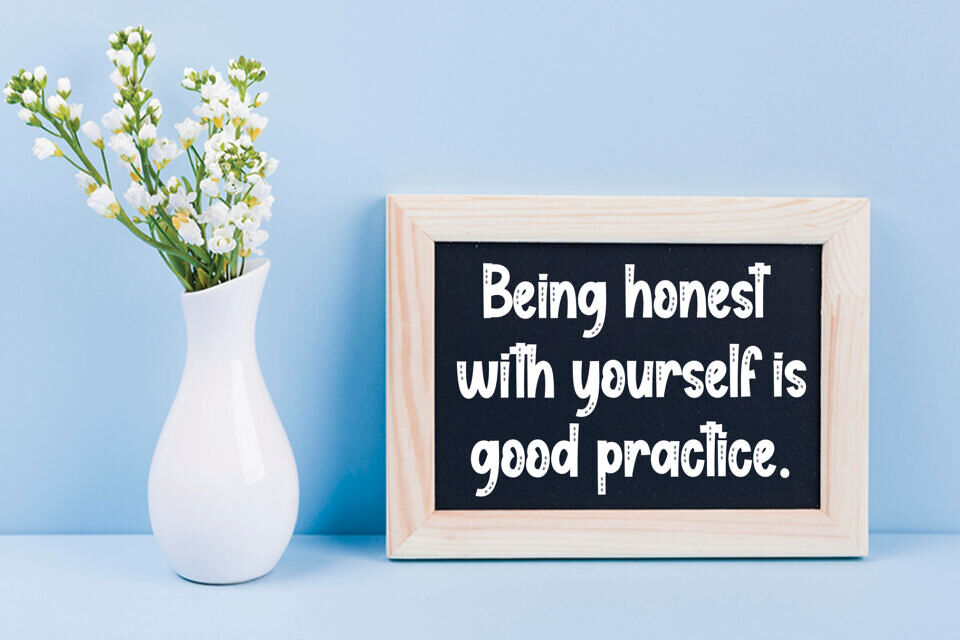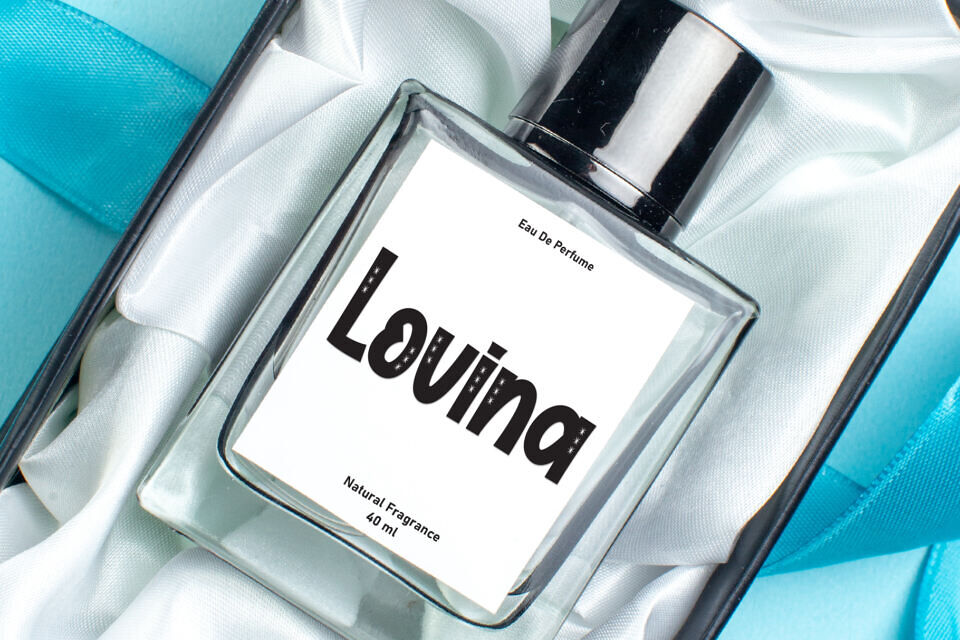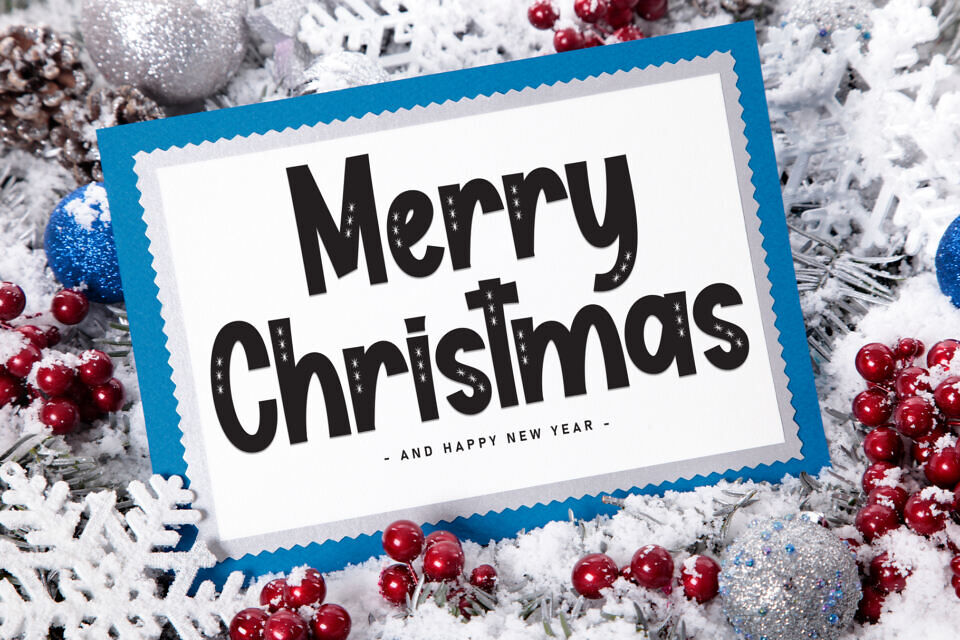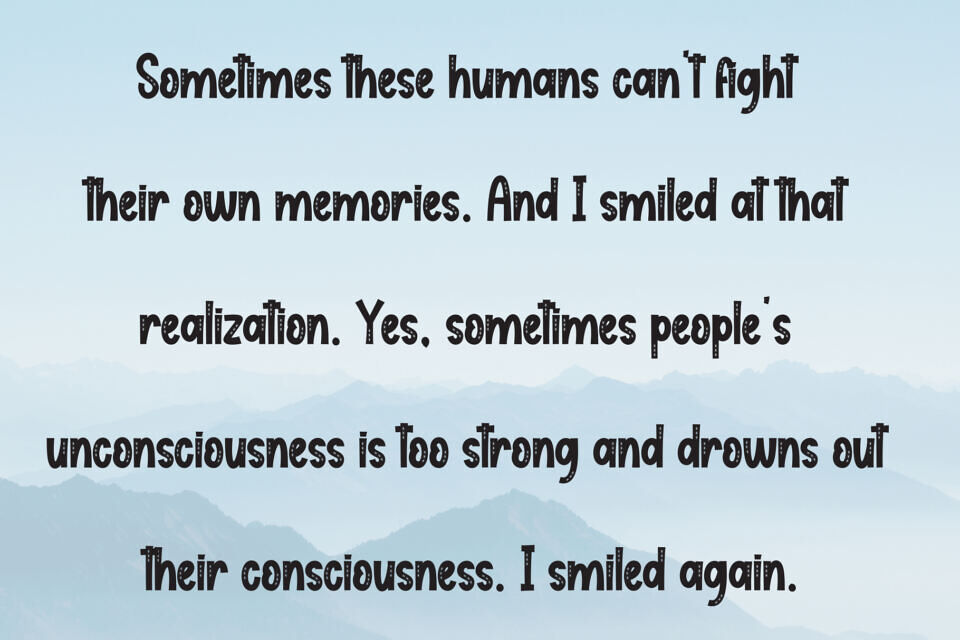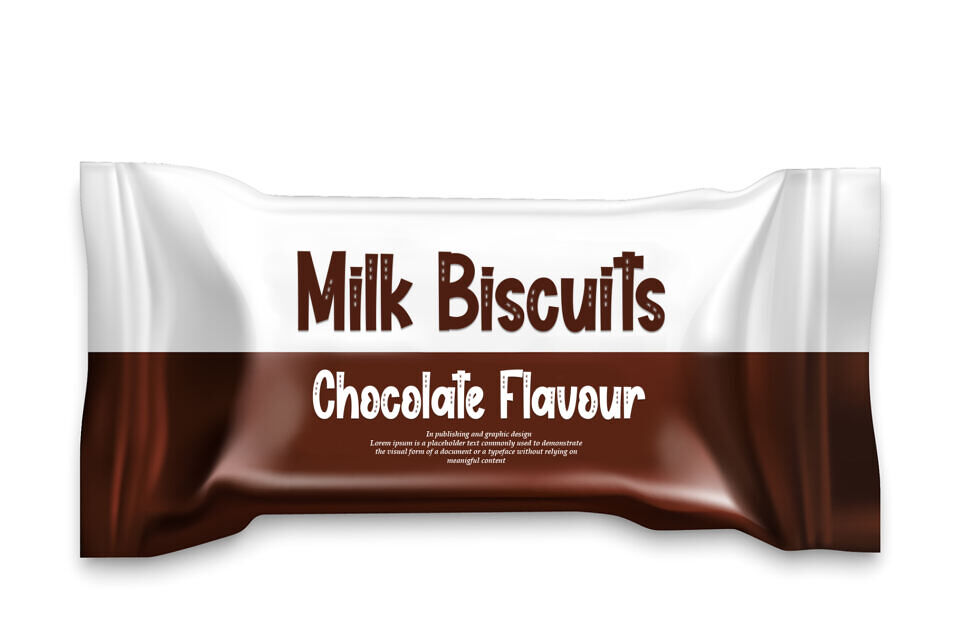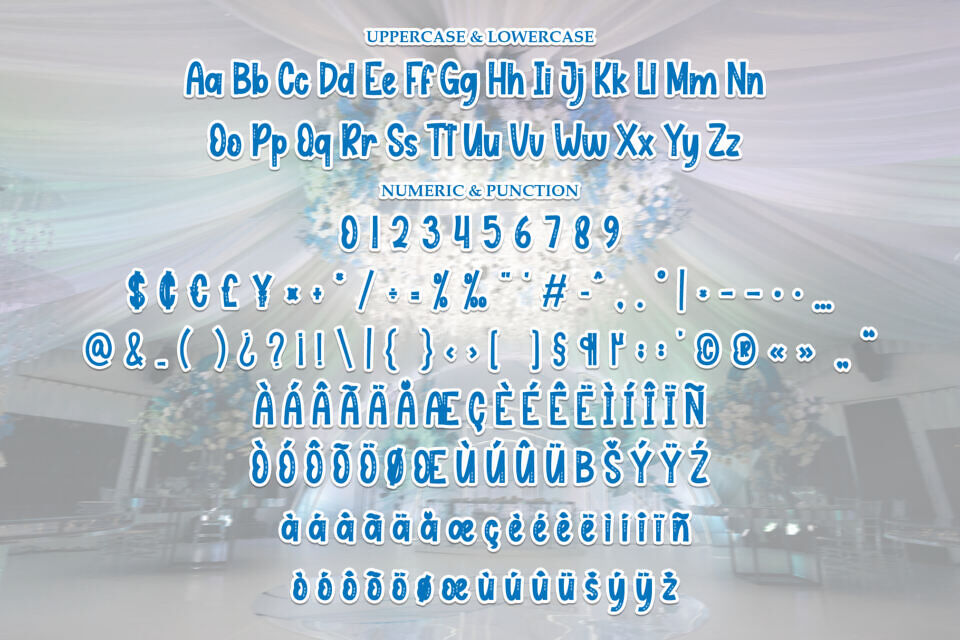
DECORATION Font is a display typeface crafted by scratchones_creative. Featuring 187 glyphs, it offers a handwritten aesthetic ideal for wall displays, wedding invitations, social media posts, logos, advertisements, product packaging, labels, photography watermarks, and stationery.